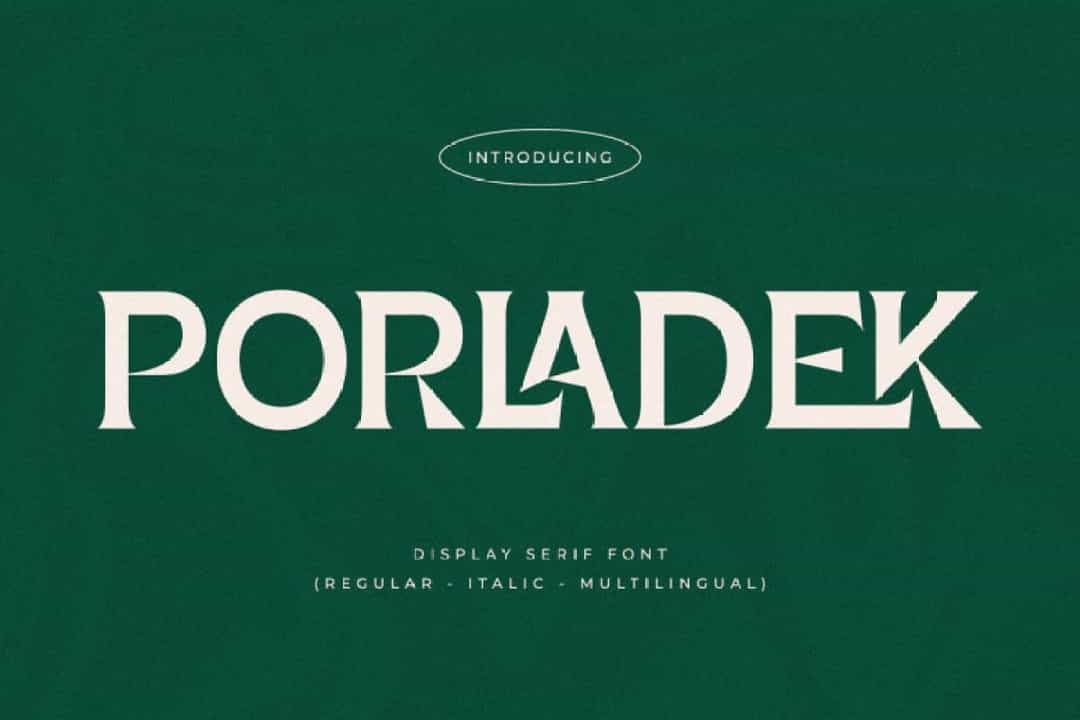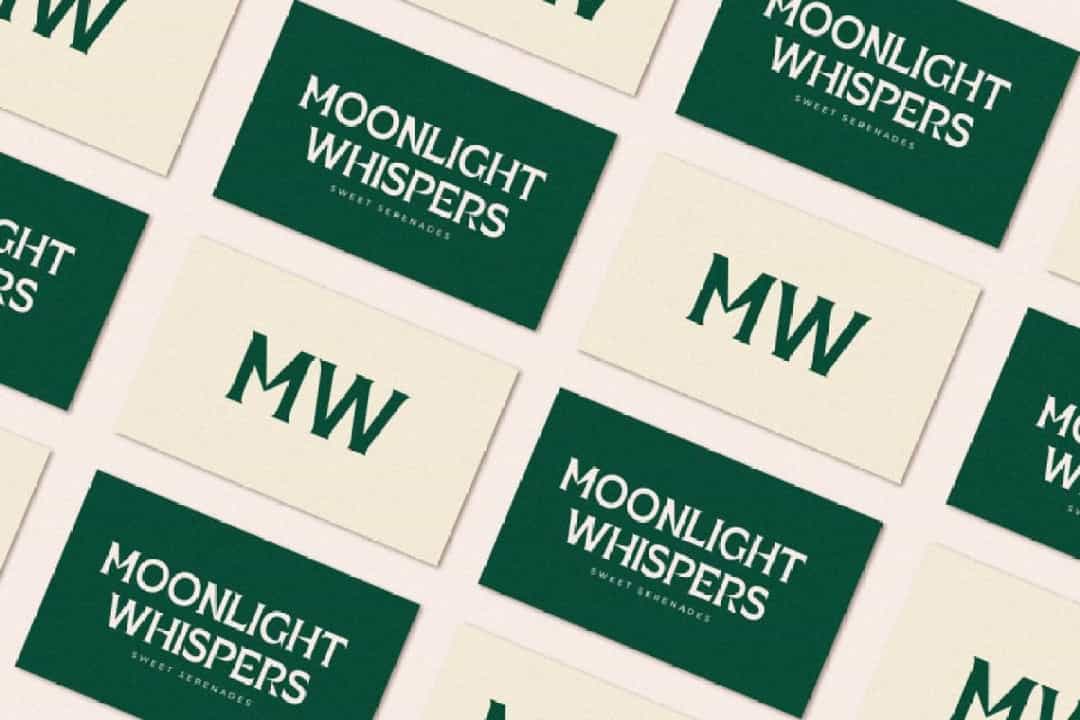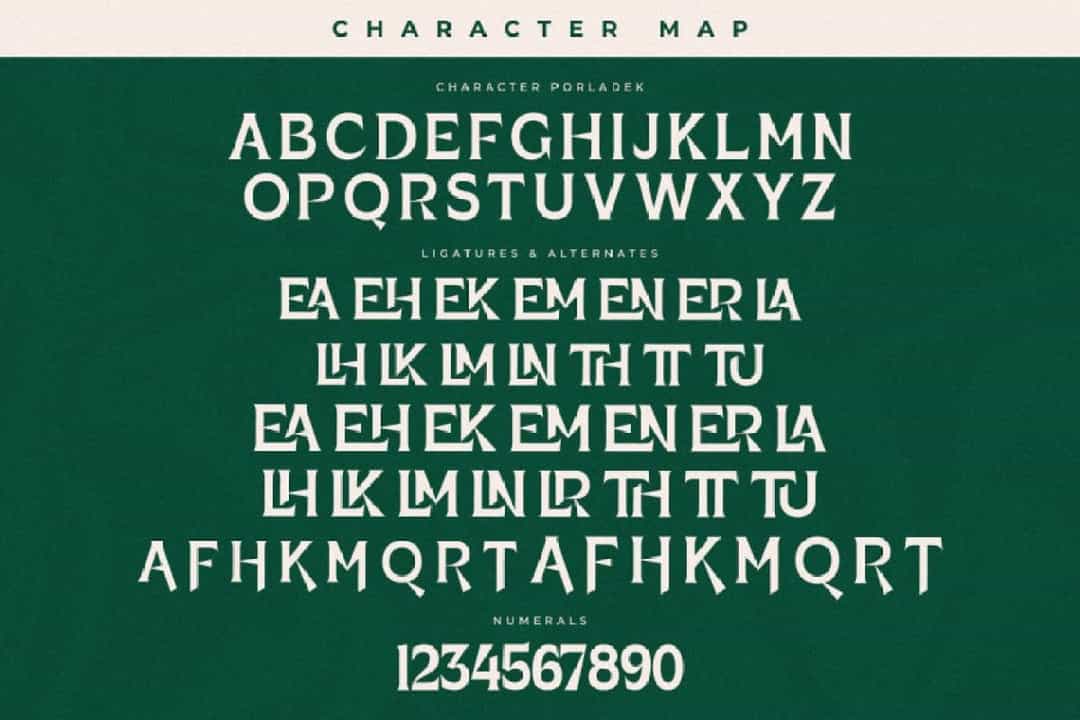
Porladek, It is an elegant and modern serif typeface with a distinctive design and contemporary look, ideal for creating classy logos, book or film styles, fashion label clothing lines, magazine letters, quotes and much more.